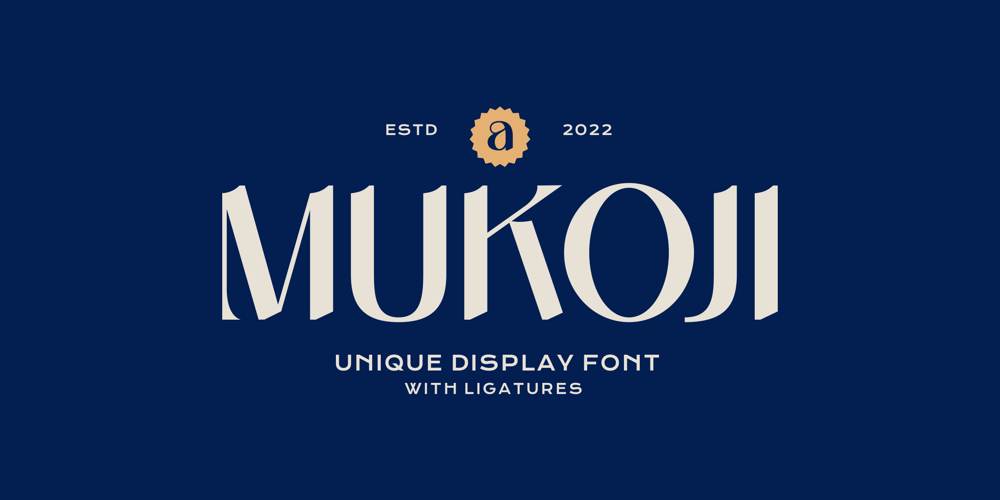
Mukoji Font Family was designed by Aulia Savira Putri and published by Imoodev. Mukoji contains 1 styles and family package options. Mukoji is unique elegant font with visual elegance, smooth curves, and beautiful ligatures clear, making your work look true and attractive.A versatile font that works in both large and small sizes. This font is suitable for a wide variety of projects such as invitations, logos, branding, magazine, photography, card, product packaging, mugs, quotes, poster, labels, signatures, and more.A font that is perfect for all business sectors including personal projects, studio, corporate, creative agency, industrial, company, etc.